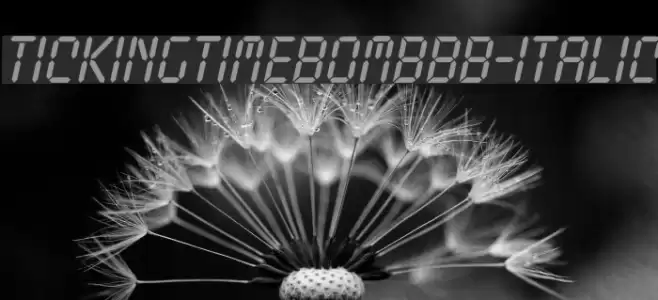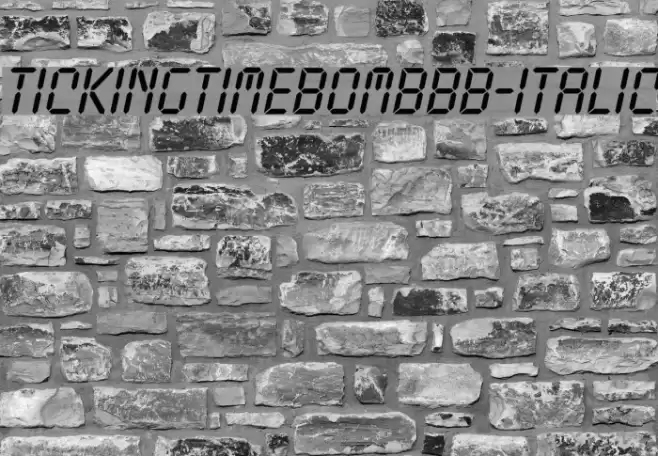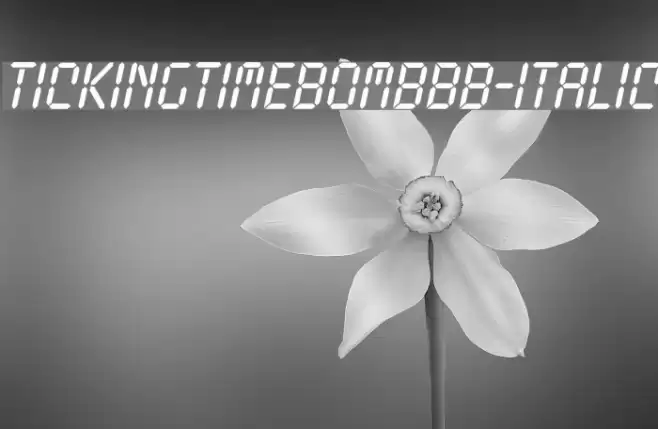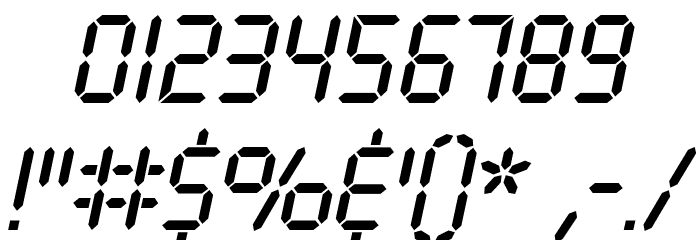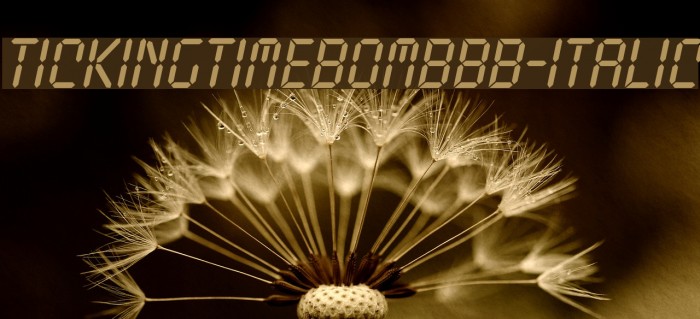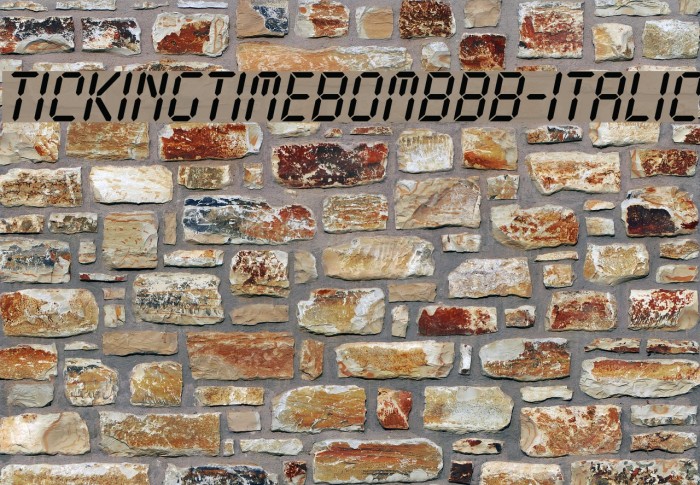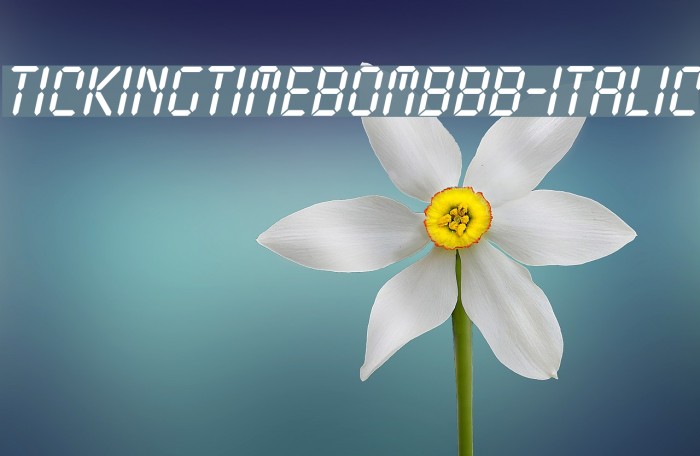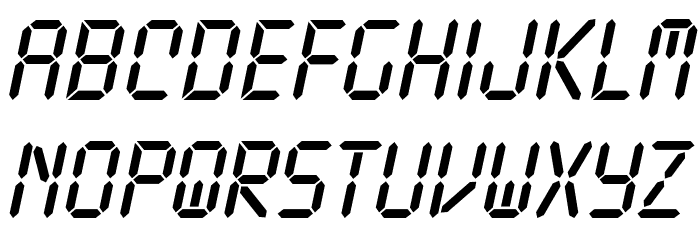
TickingTimebombBB-Italic Font
TickingTimebombBB-Italic Description
This font features a digital, segmented style reminiscent of old digital clocks or LED displays. Each character is composed of angular, geometric shapes that create a futuristic and technological appearance. The italic slant adds a dynamic and forward-moving feel, enhancing its modern aesthetic. The characters are uniformly spaced, maintaining a consistent rhythm across the text. This font's unique design makes it stand out, particularly in contexts that require a tech-savvy or digital theme.
A digital, segmented font with a futuristic, italicized style from Uncategorized fonts.
- Proposed Projects: Ideal for digital-themed projects, tech company branding, futuristic posters, and electronic device interfaces.